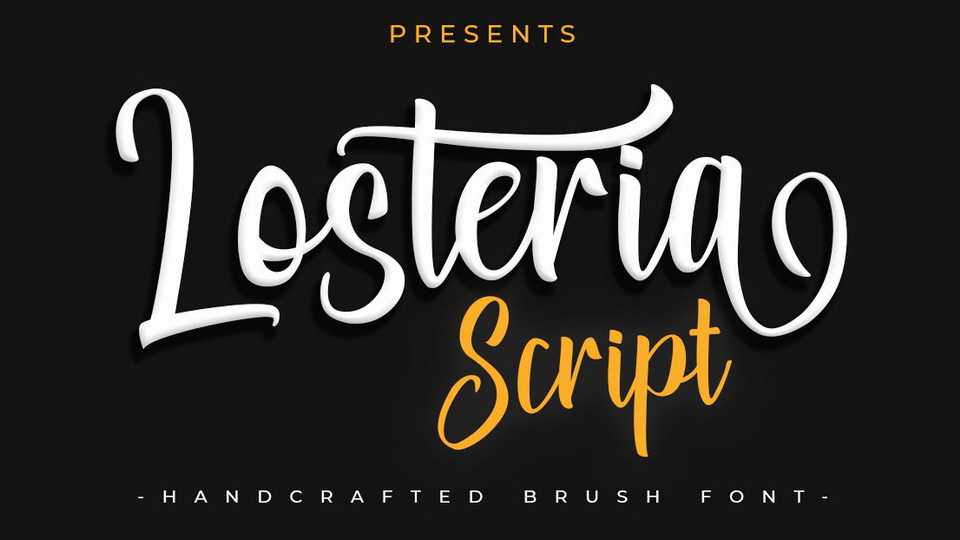
Download Losteria Script font, a handmade brush typeface, featuring beautiful flowing characters. Losteria will add a romantic touch to any crafting project!